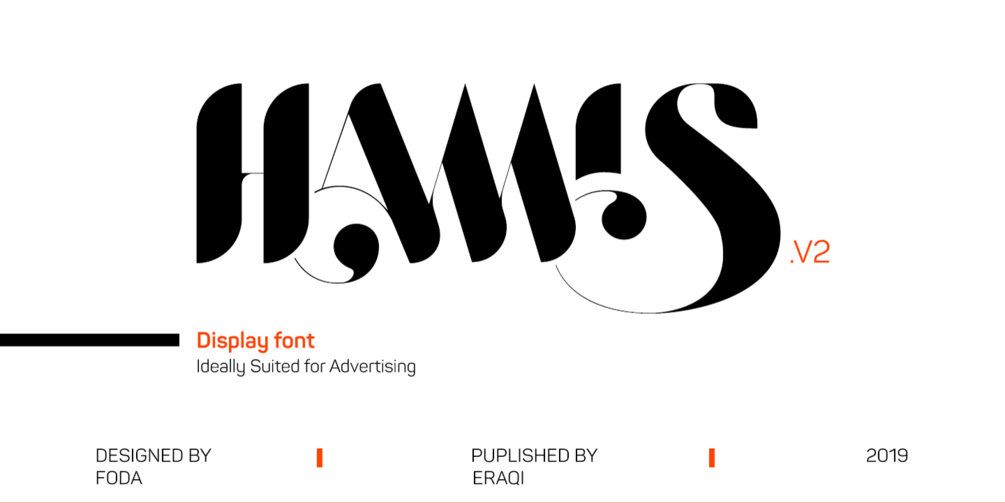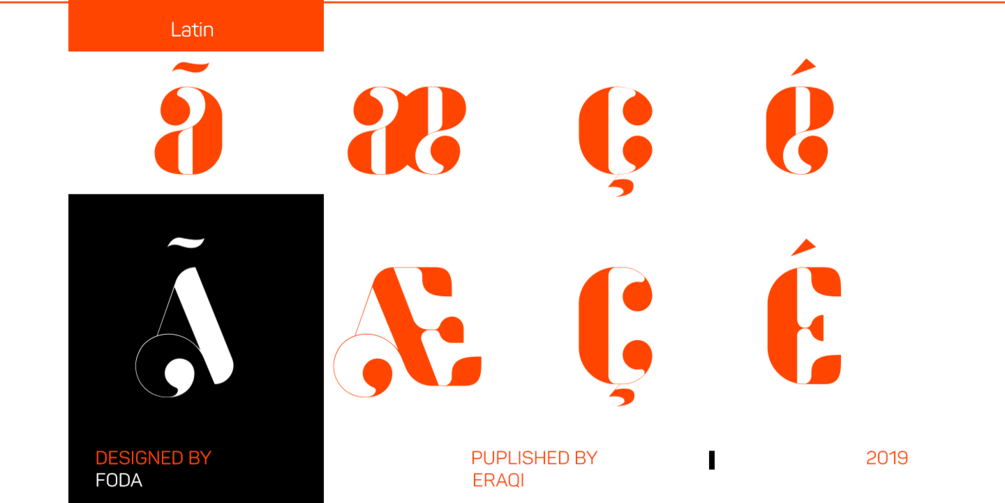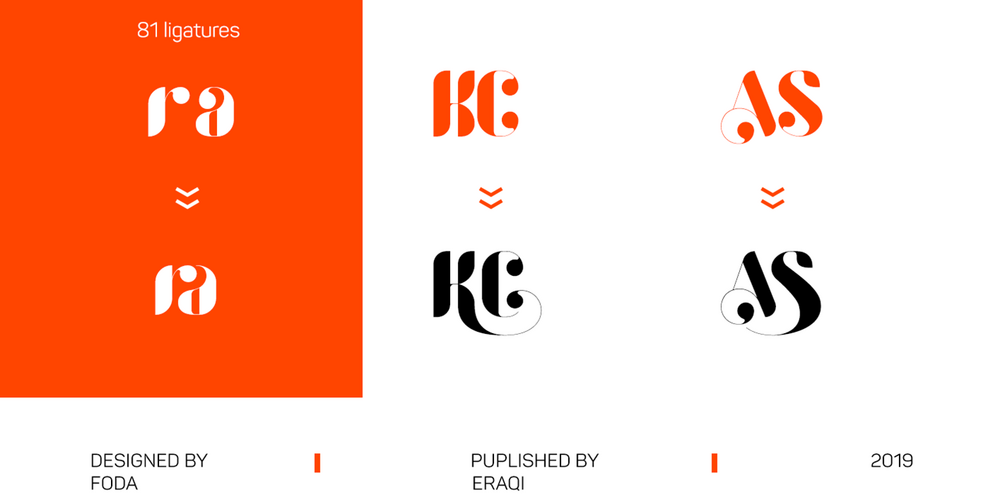
Hamis vol. 2 typeface
"Hamis vol. 2" is an improved version of "Hamis" font, and provides advanced typographical support with features such as ligatures, case-sensitive forms, fractions, super and subscript characters, and stylistic alternates. This is a more professional than "Hamis" font. "Hamis vol. 2" is a display font of a single weight " Regular ", ideally suited for advertising and packaging, festive occasions, editorial and publishing, logo, branding and creative industries, posters and billboards as well as web and screen design. It comes with a complete range of figure set options – oldstyle and lining figures, each in tabular and proportional widths.